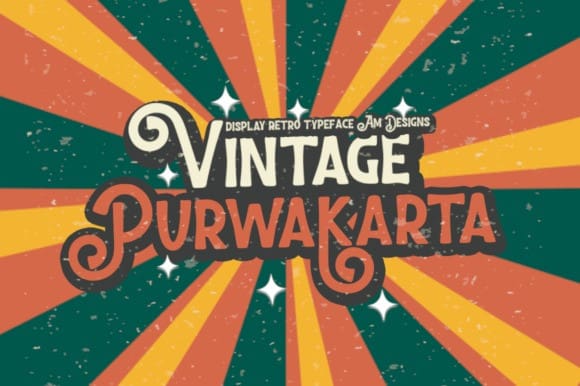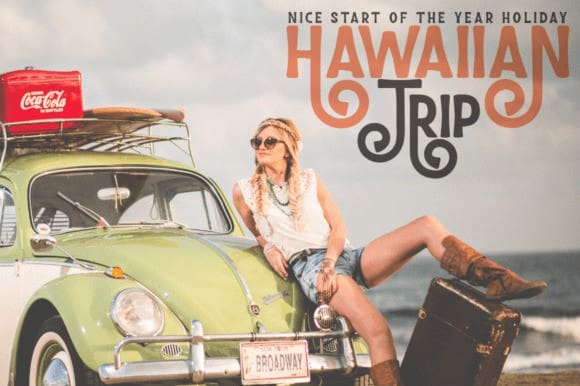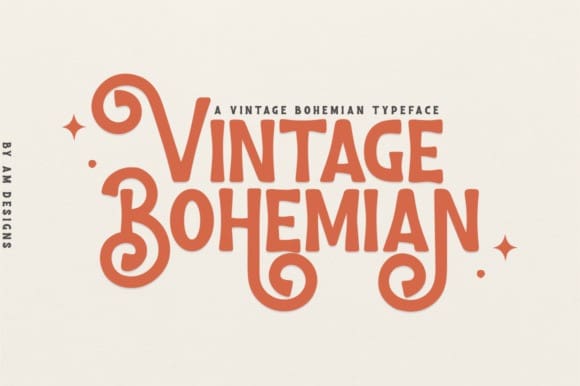
Vintage Bohemian Font
Vintage Bohemian Font, that is unique, bold, and cheerful. Its unique character and light nature make this typeface a must-have in your font library! Use it to express your creative and fun design ideas.